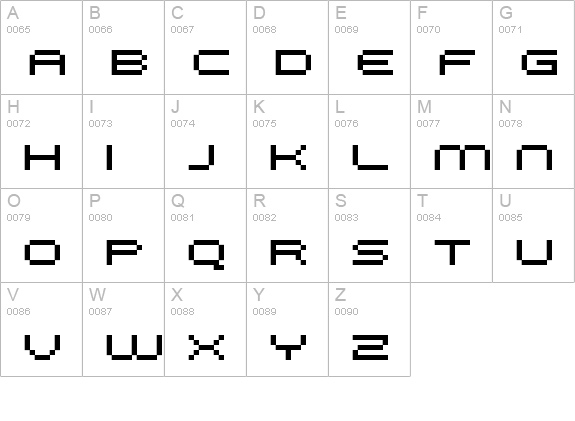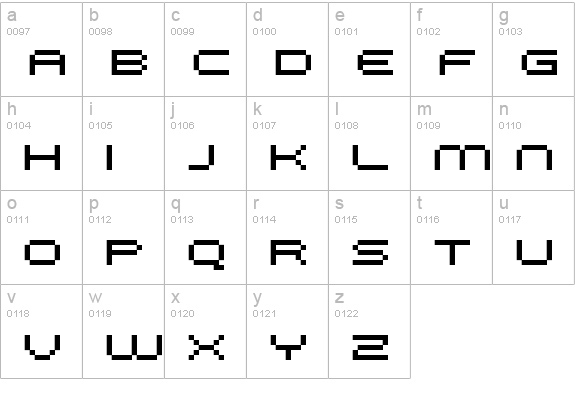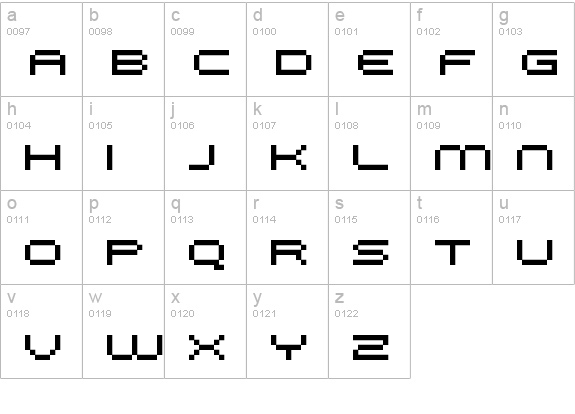
FFF Galaxy Font Details
Introducing the exquisite FFF Galaxy font, a captivating display typeface that exudes a sense of futuristic elegance and cosmic charm. With its sleek lines and modern aesthetic, this font is perfect for adding a touch of sophistication to any design project. The FFF Galaxy font features a unique blend of geometric shapes and sharp angles, giving it a distinctive and captivating look that is sure to make your text stand out. What makes the FFF Galaxy font even more appealing is that it is completely free to download at FontsMarket.com. This means that you can easily access this stunning typeface without any cost, making it a valuable addition to your font collection. Whether you're working on branding, packaging, posters, or any other creative project, the FFF Galaxy font will help you achieve a polished and professional look. Embrace the beauty of the cosmos with this exceptional font and elevate your designs to new heights.